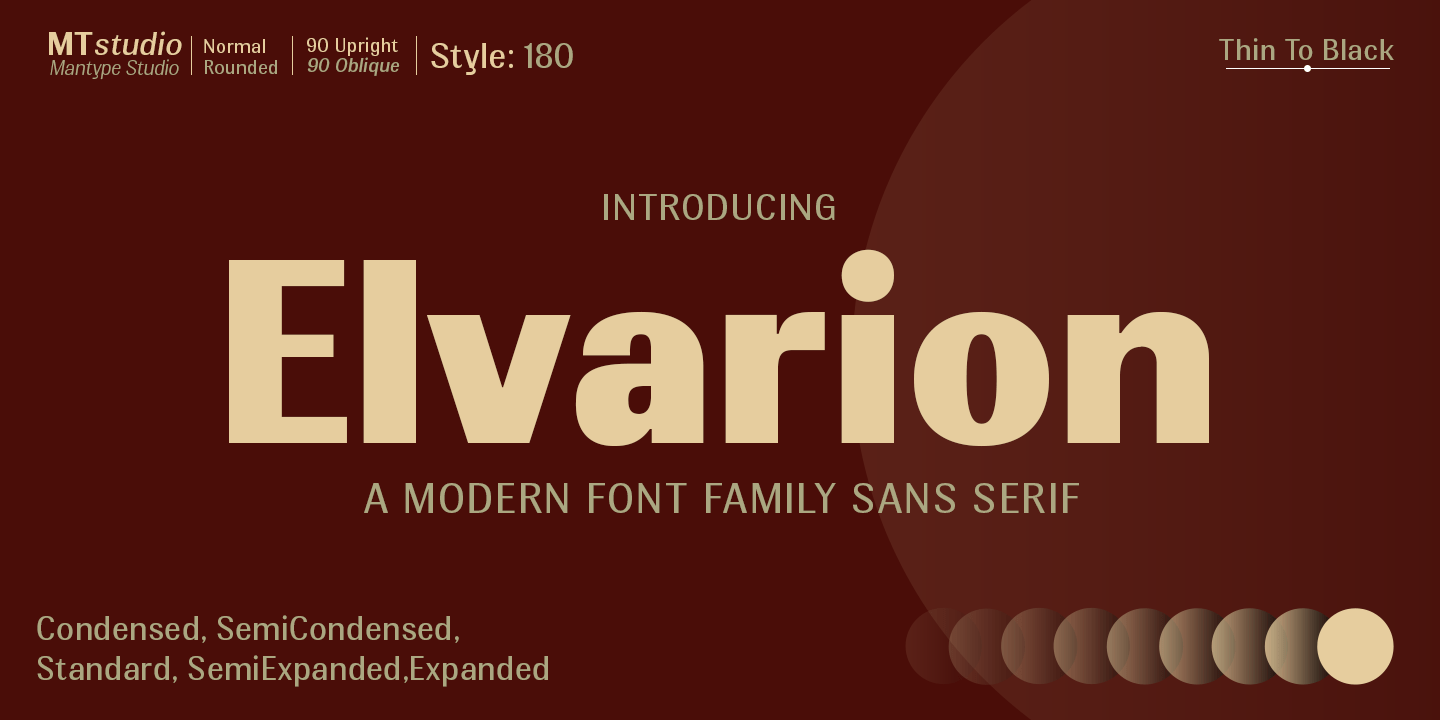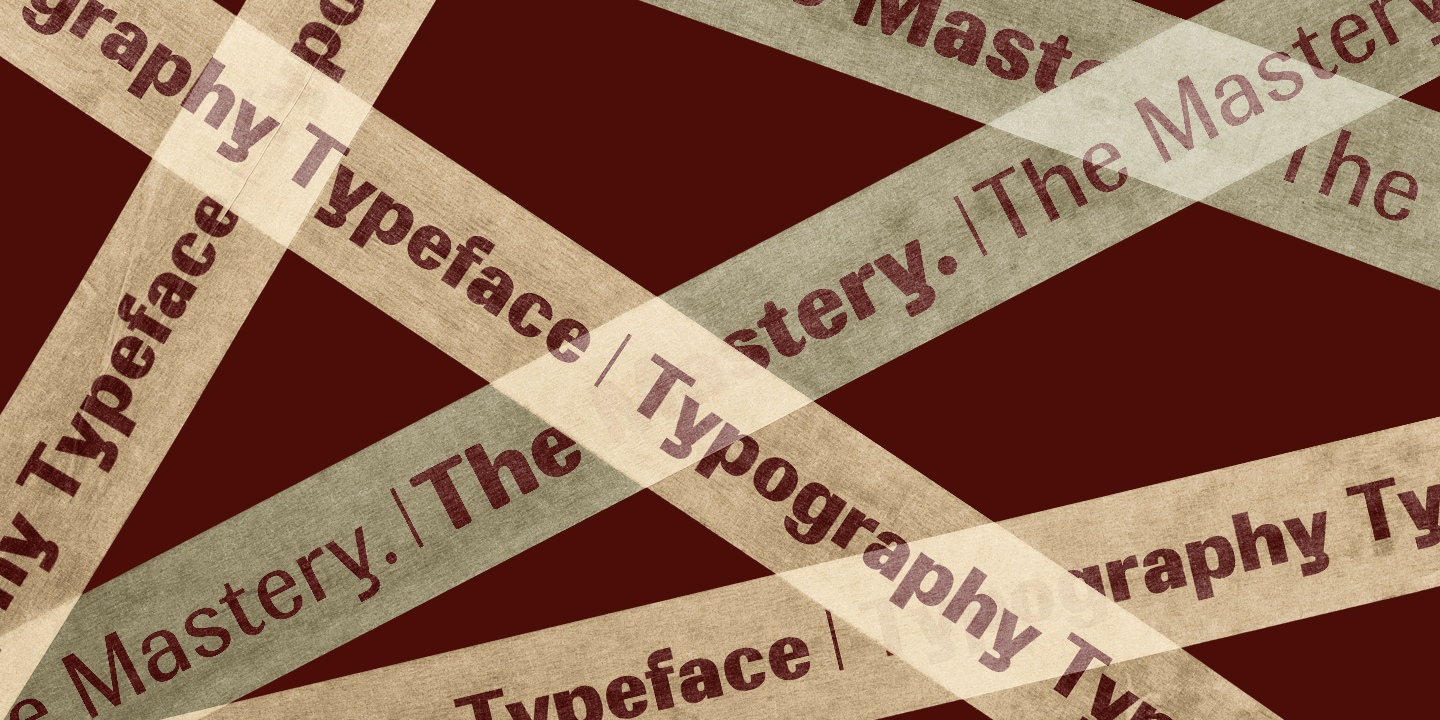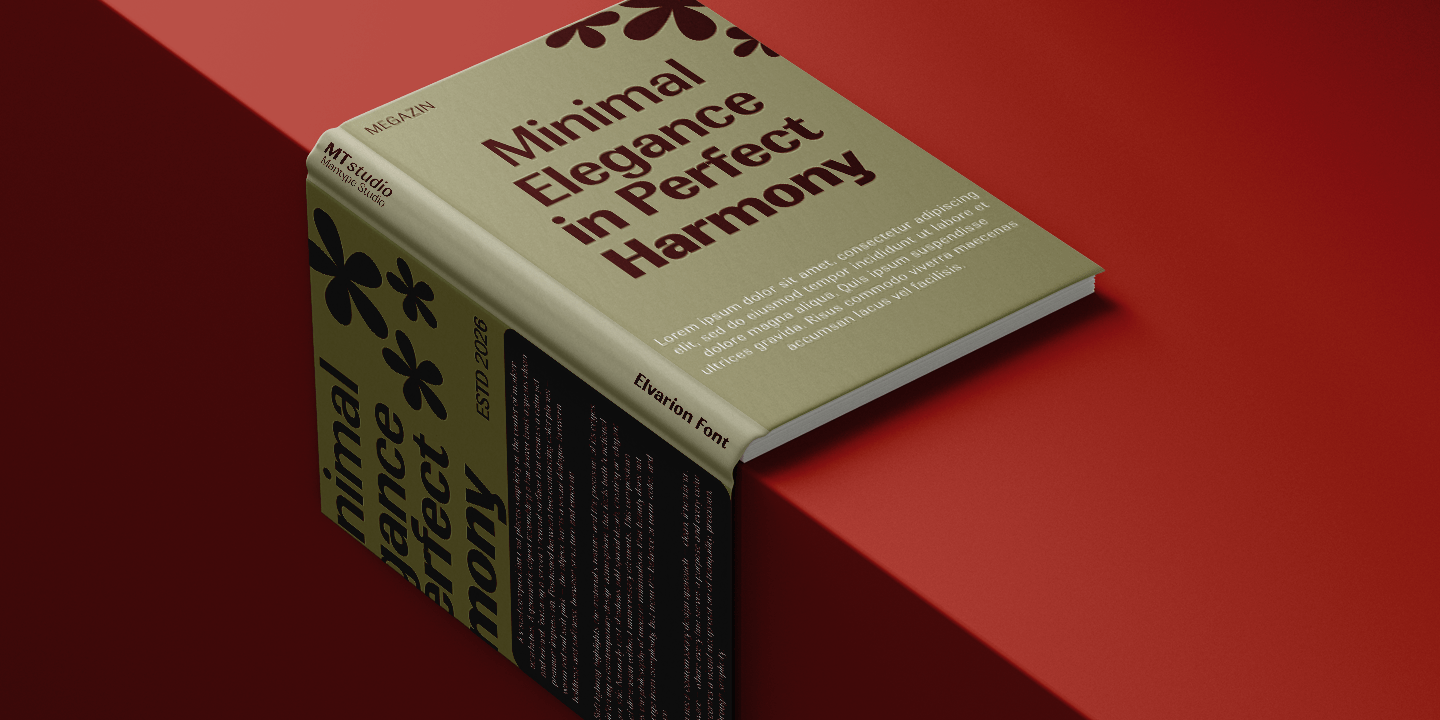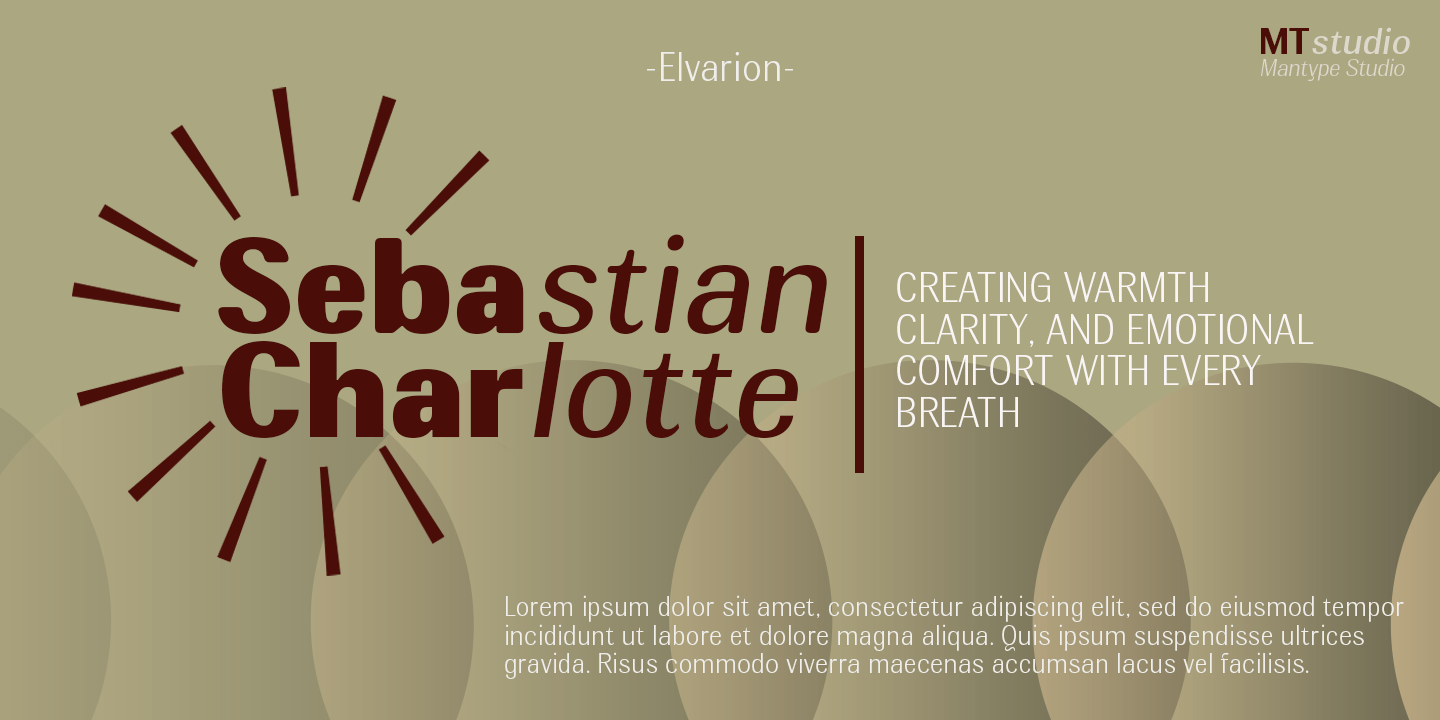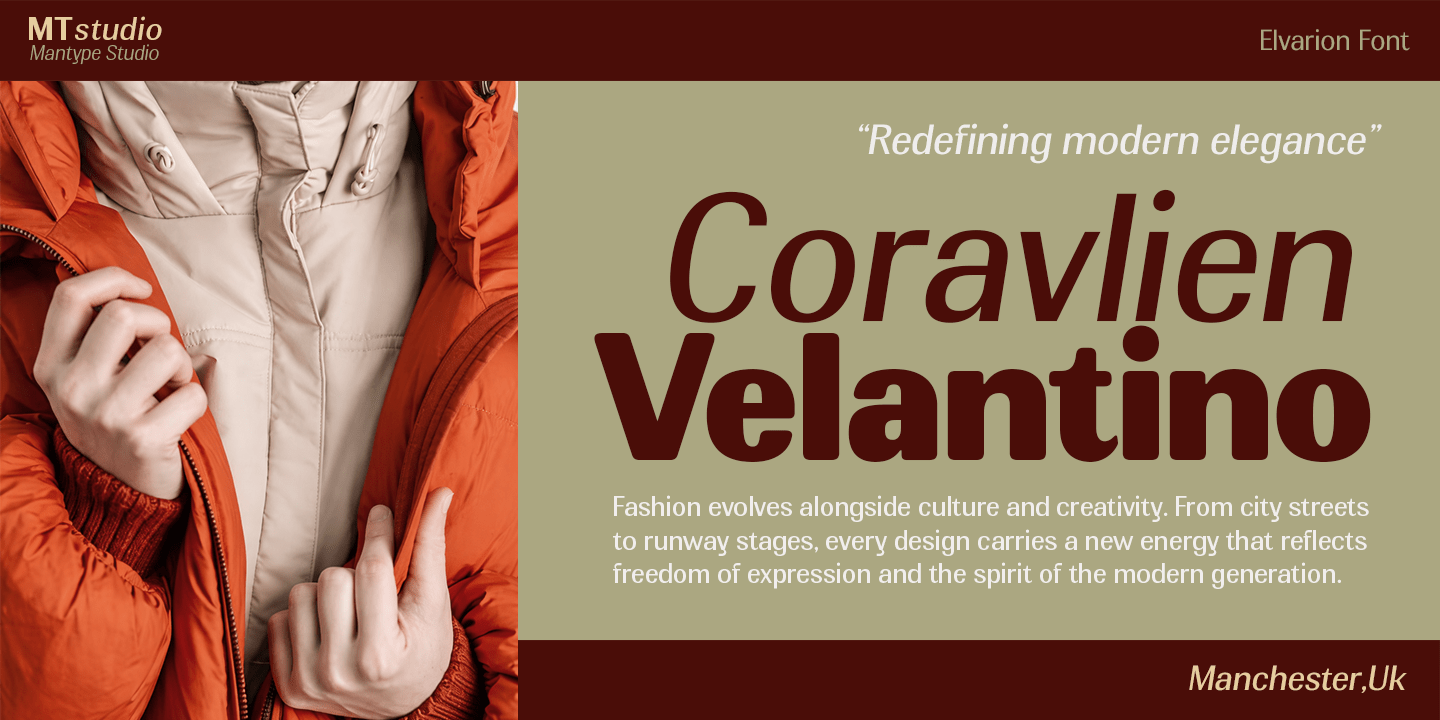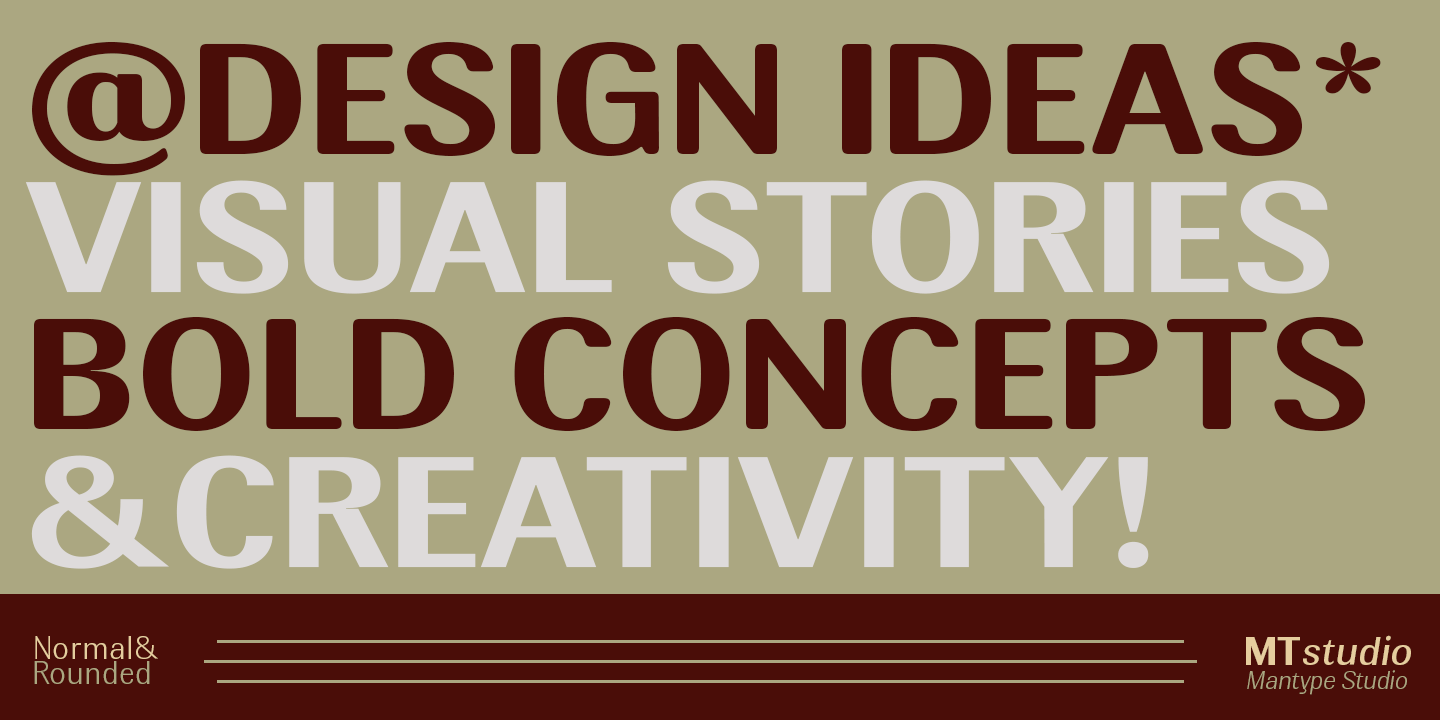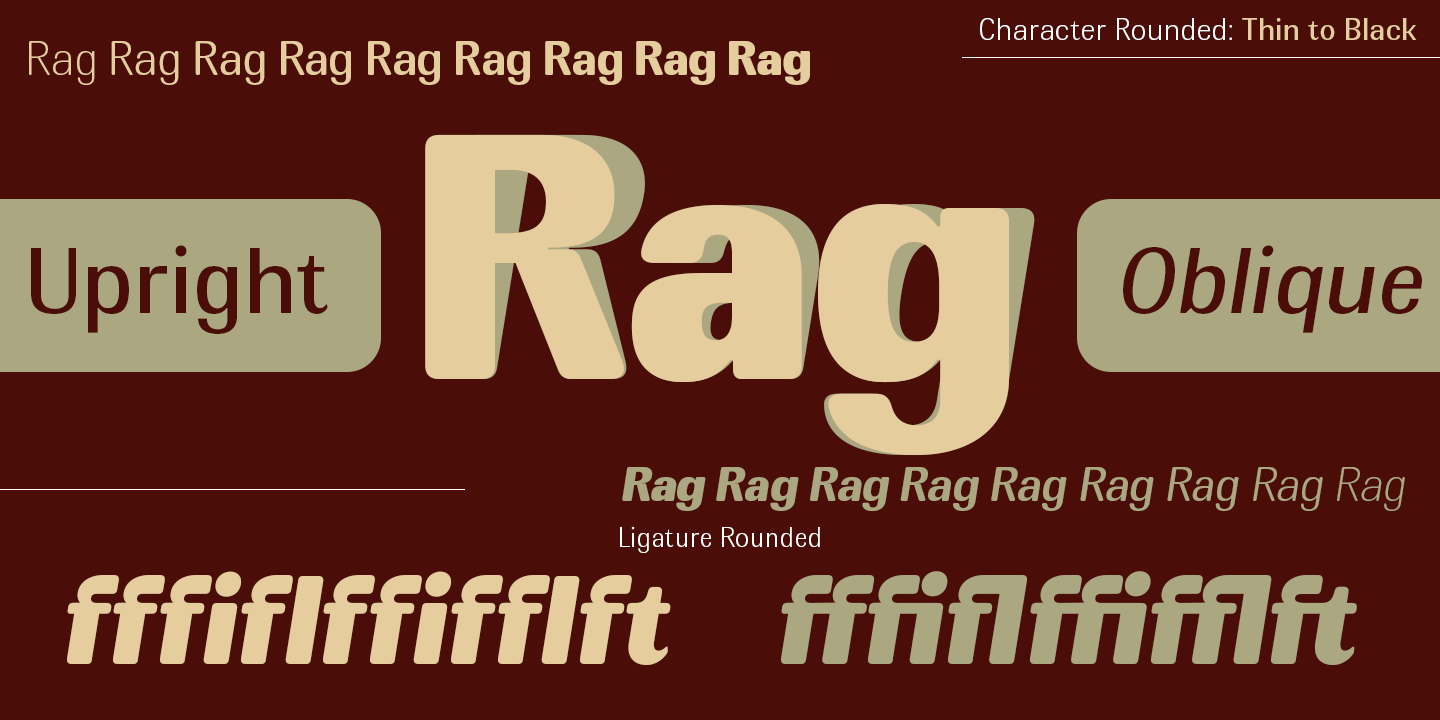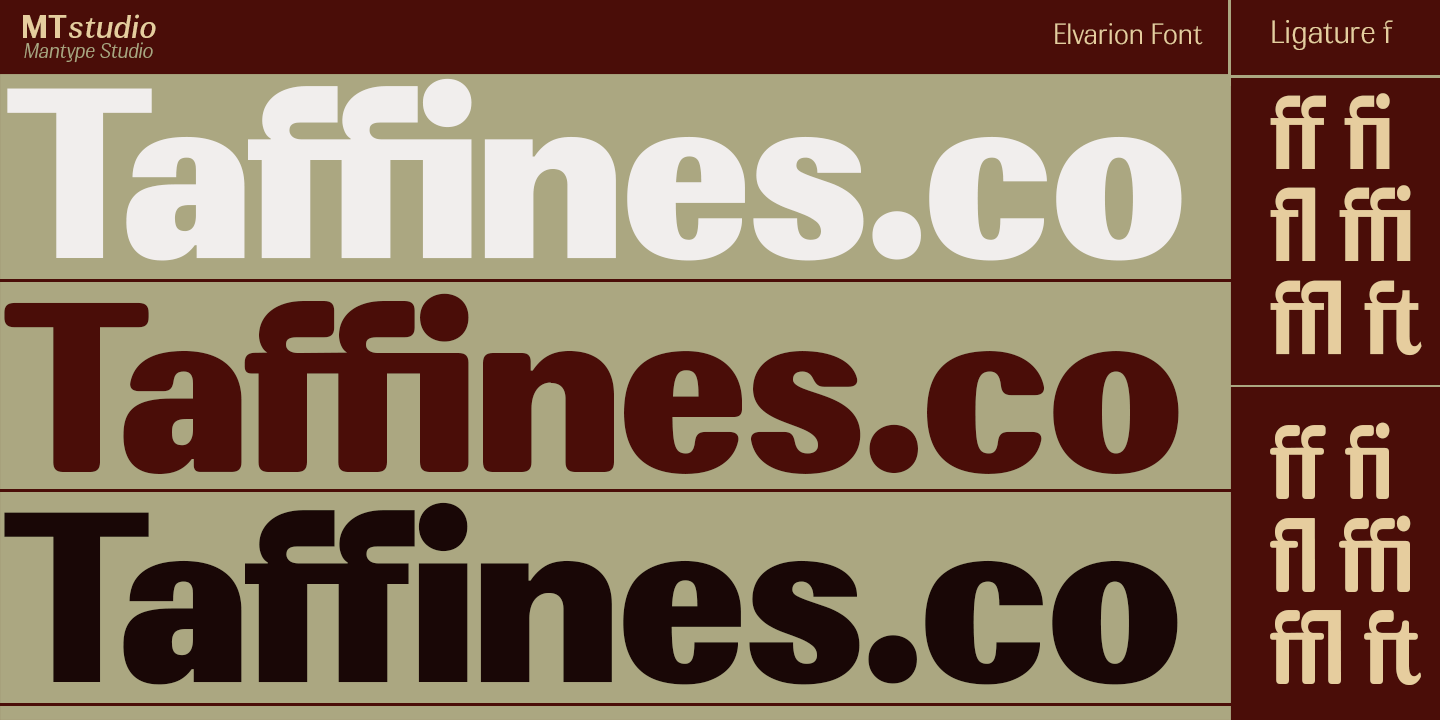
Elvarion
Elvarion is a modern sans serif typeface family that emphasizes the balance between visual strength and refined simplicity. With solid letterforms, firm proportions, and clean geometric construction, Elvarion delivers a professional, contemporary, and versatile presence for a wide range of design applications. Designed with a width system ranging from Condensed to Expanded, along with multiple weights from Thin to Black, this typeface offers extensive typographic flexibility. Its subtle curves and precise letter construction make it ideal for headlines, branding, editorial layouts, posters, and modern visual identities.